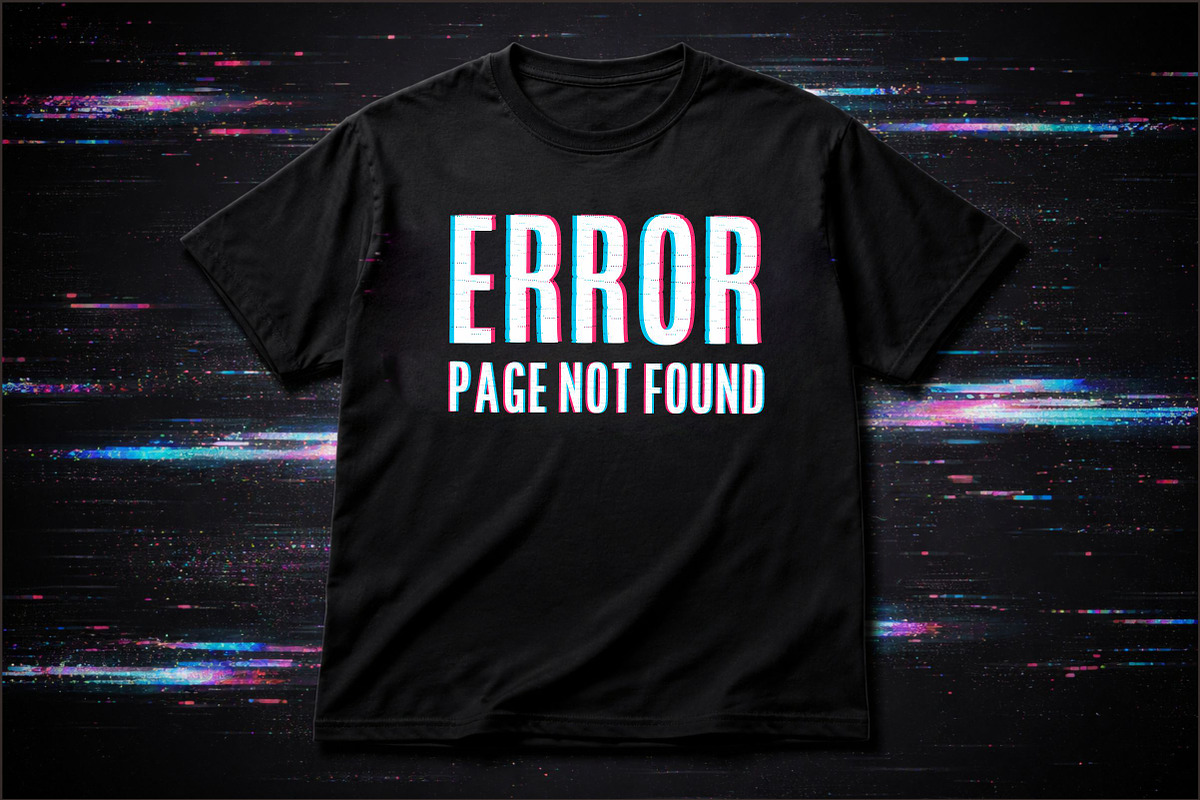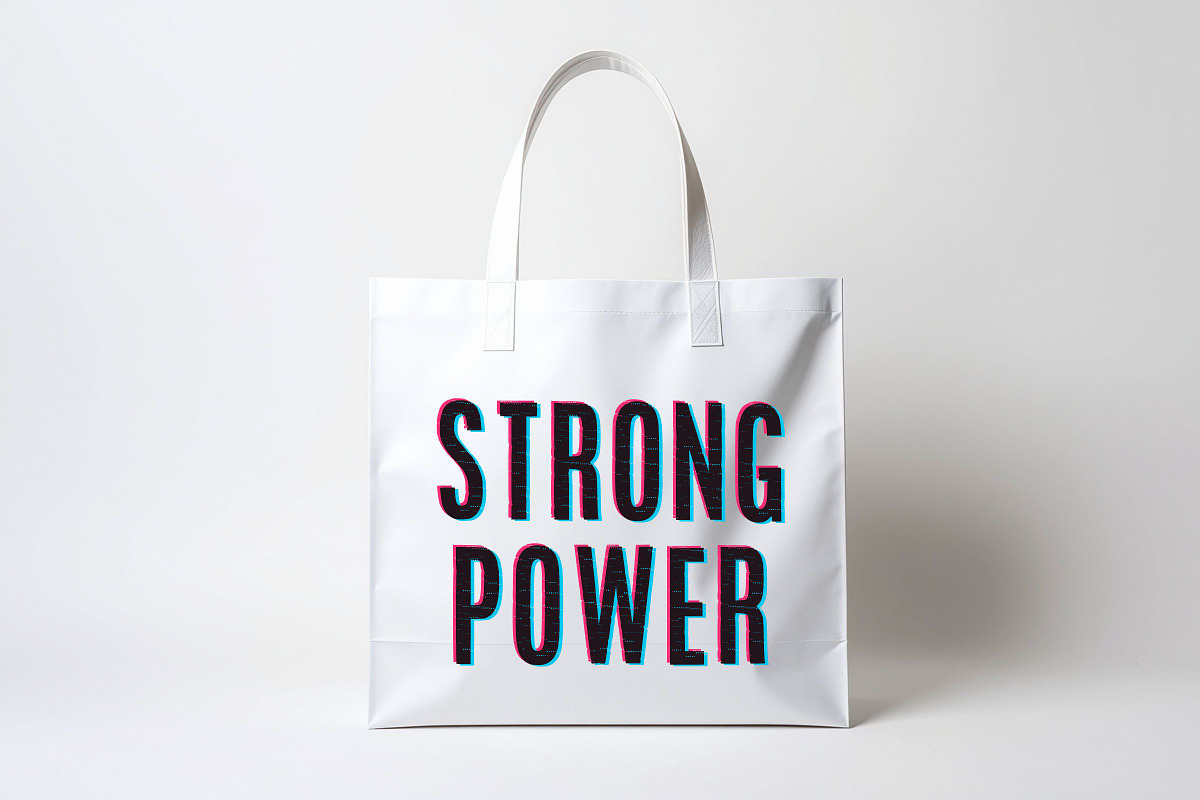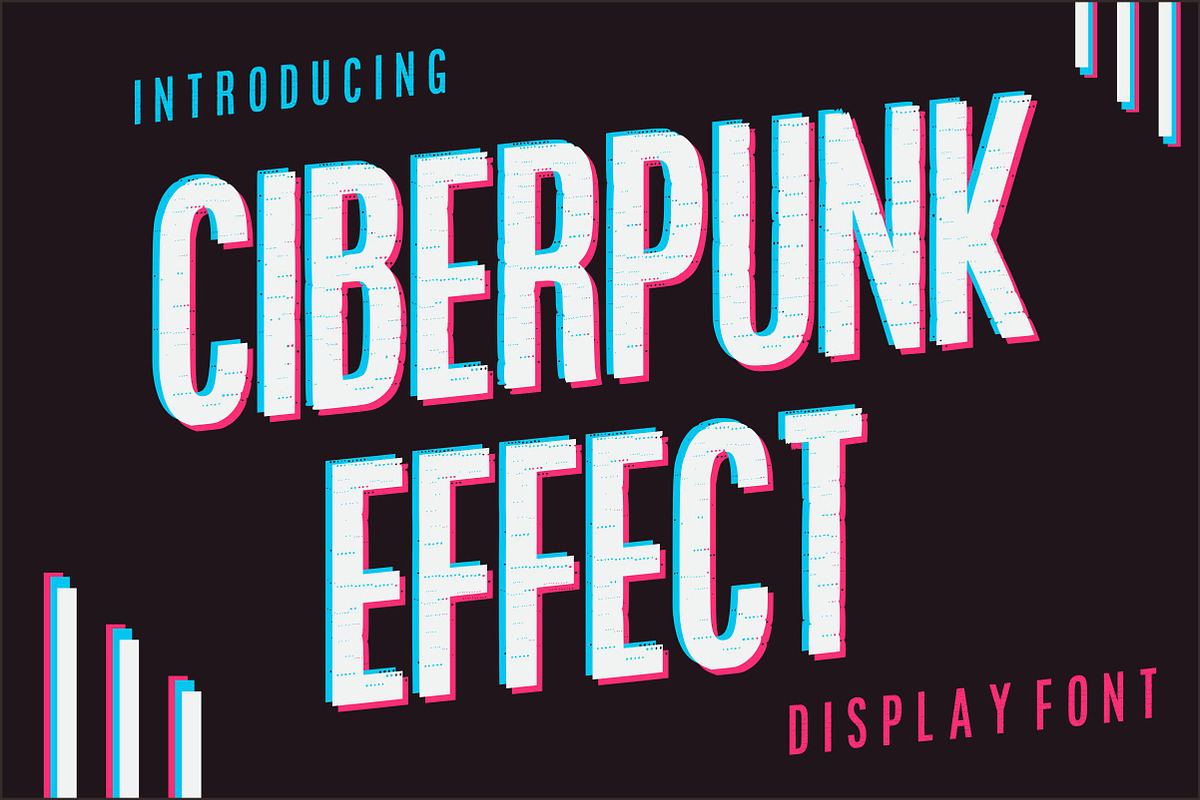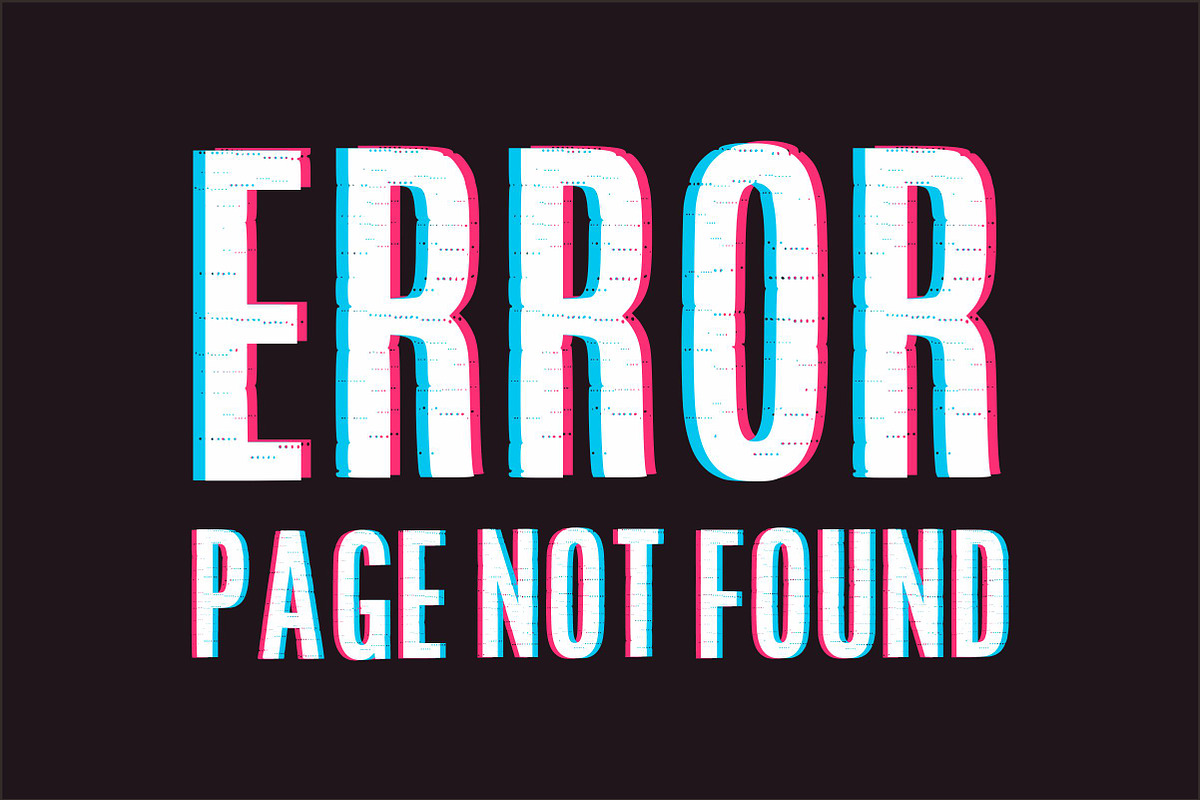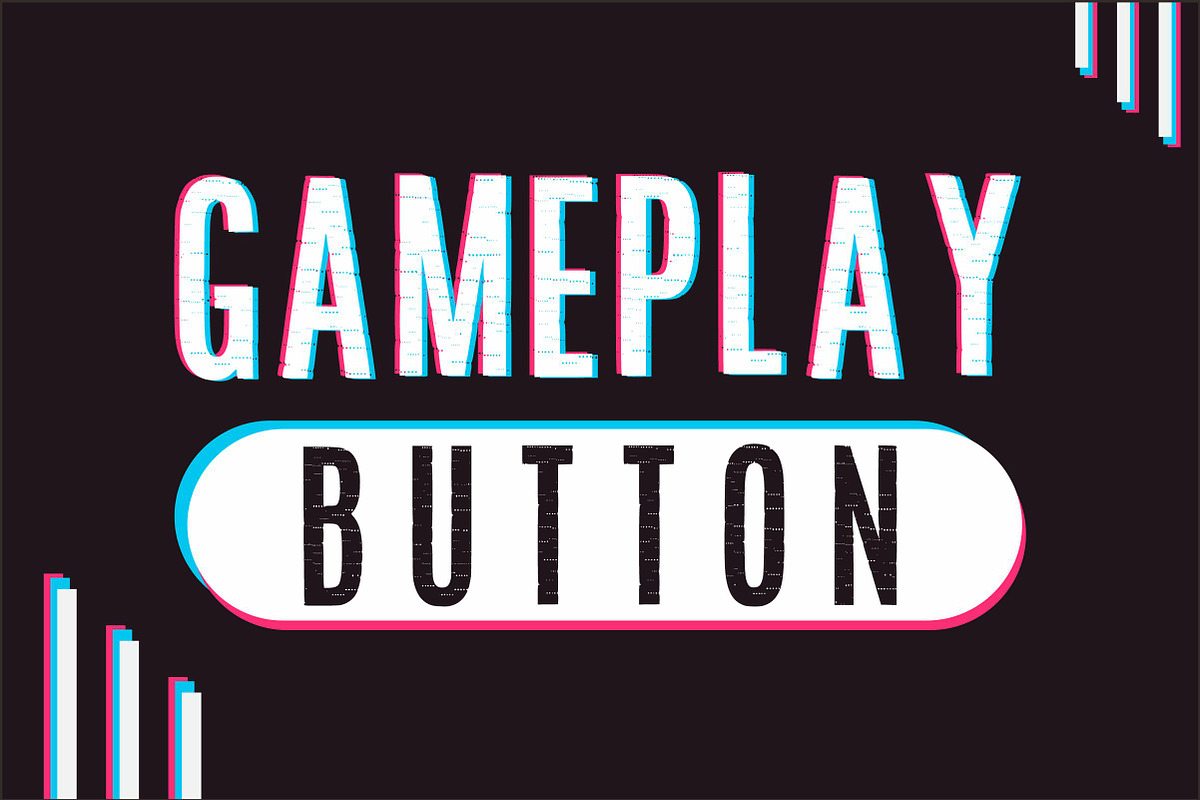
Ciberpunk Effect
Cyberpunk Effect is a bold futuristic display font inspired by cyberpunk aesthetics, glitch graphics, and digital sci-fi interfaces. The font features strong geometric letterforms combined with subtle glitch textures and vibrant chromatic shadow effects that create a dynamic 3D cyber style.
Perfect for futuristic branding, gaming titles, technology posters, sci-fi designs, thumbnails, esports graphics, posters, and digital artwork. Cyberpunk Effect adds a modern neon-tech vibe that instantly grabs attention and gives your designs a high-tech futuristic feel.
Whether you’re creating cyberpunk posters, gaming logos, or digital artwork, this font will give your design a powerful and stylish sci-fi atmosphere.